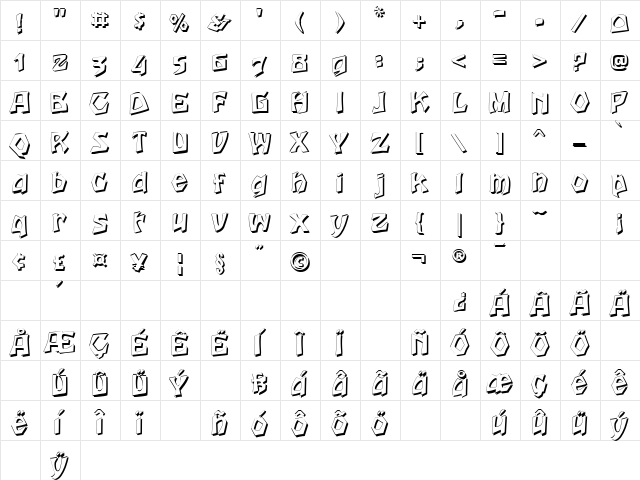
Houtsneeletter Shadow Regular
Design Context for Houtsneeletter Shadow Typeface
Houtsneeletter Shadow is built around its visual character rather than neutral utility — its distinctive forms are designed to make an impression at display sizes.
Font Pairing: Pair with a clean neutral sans-serif for body copy to let Houtsneeletter Shadow's character lead without overwhelming the composition.
Pro Tip: Treat Houtsneeletter Shadow as the centrepiece of your typographic hierarchy. One strong heading set in a decorative face can carry an entire layout.